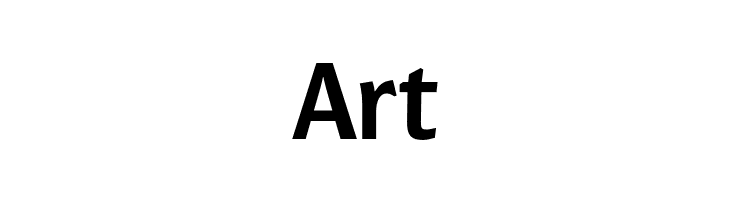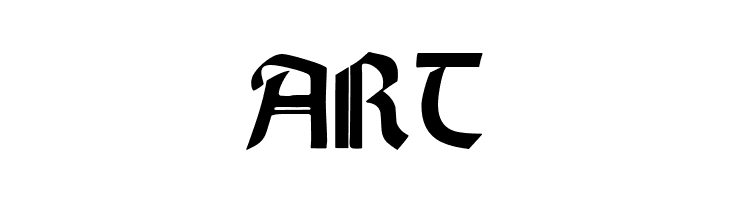
A classic serif font with strong, elegant characters and sharp serifs.
A classic serif font with pronounced serifs and a refined italic style.
A bold, modern sans-serif font with a clean and balanced design.
A bold, modern sans-serif font with clean lines and excellent readability.
A modern, italic sans-serif font with a dynamic and versatile style.
A modern, italicized sans-serif font with bold weight and excellent readability.
A bold, modern sans-serif font with excellent readability.
A bold, intricate blackletter font with ornate, Gothic-inspired design.
A bold, blackletter font with sharp, angular lines and high contrast.
A bold, blackletter font with Gothic influences and intricate detailing.